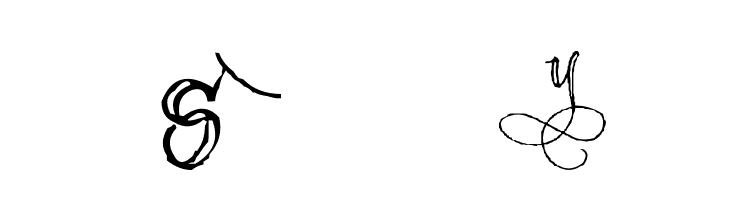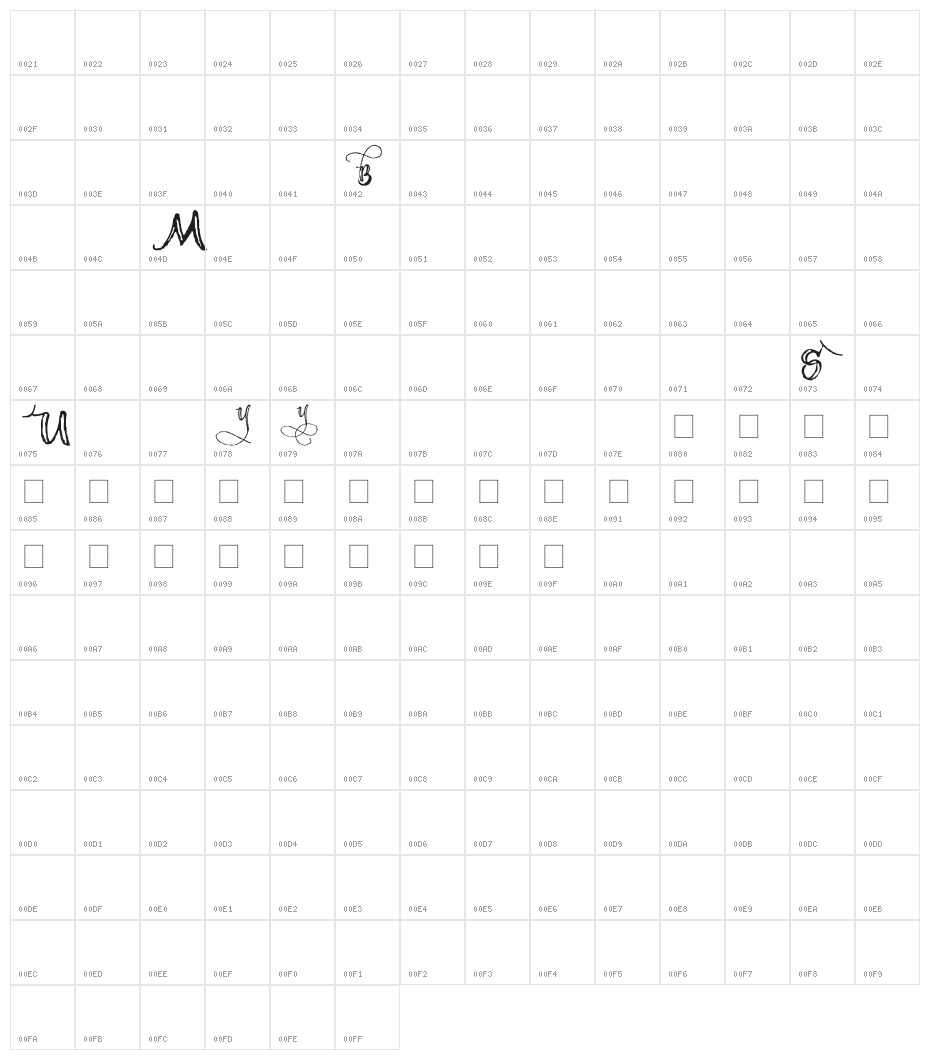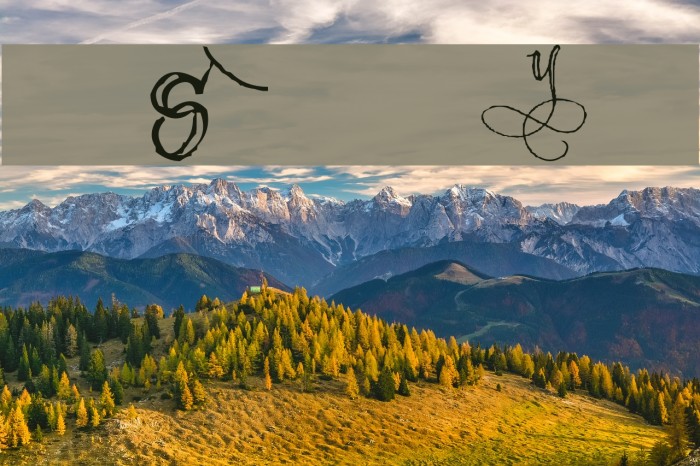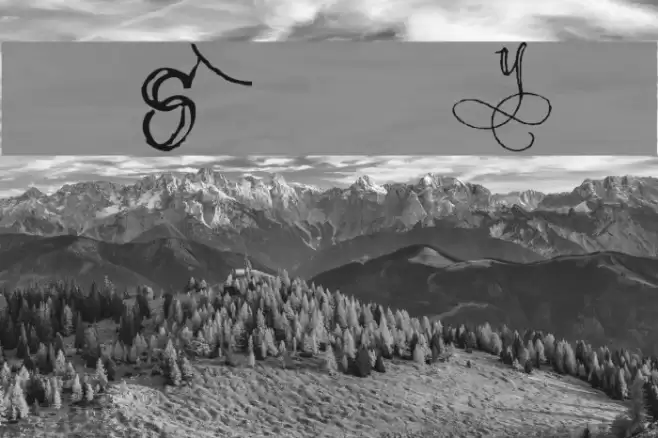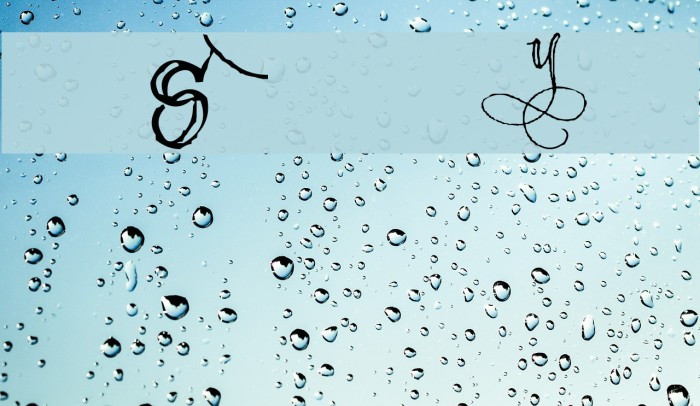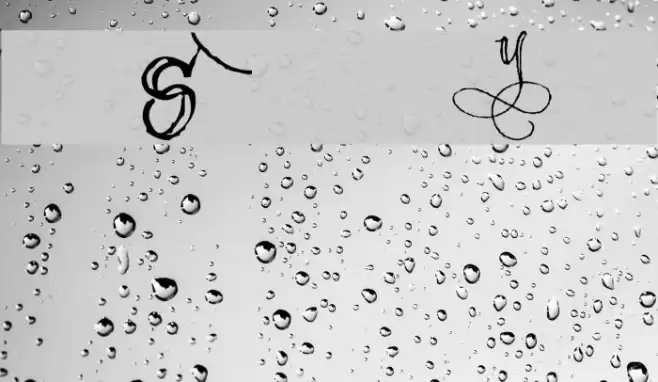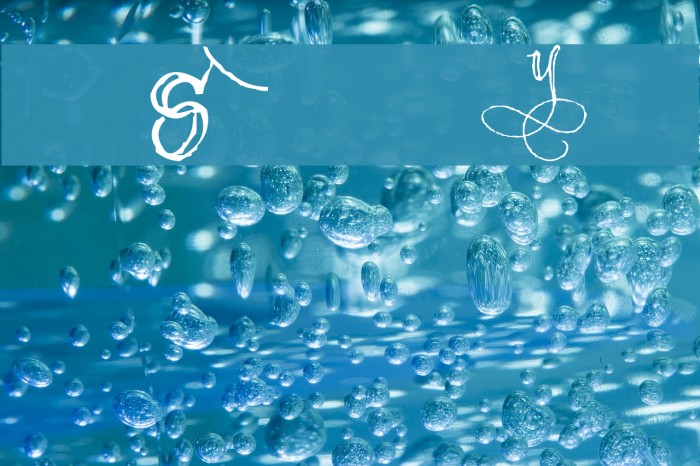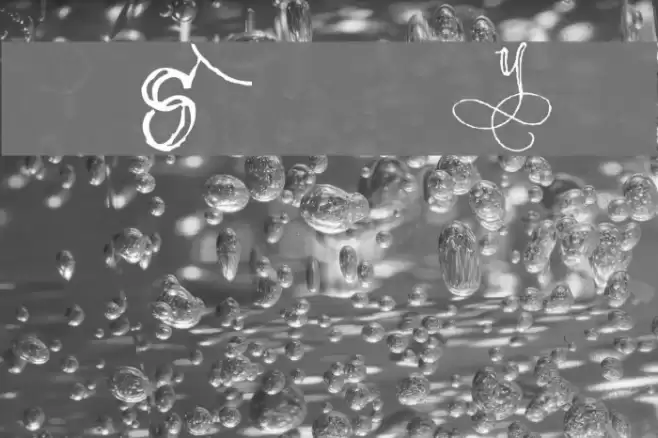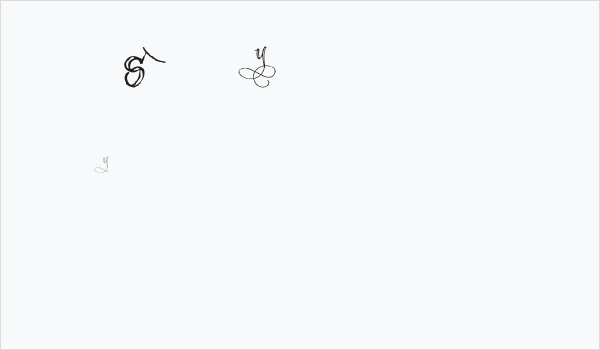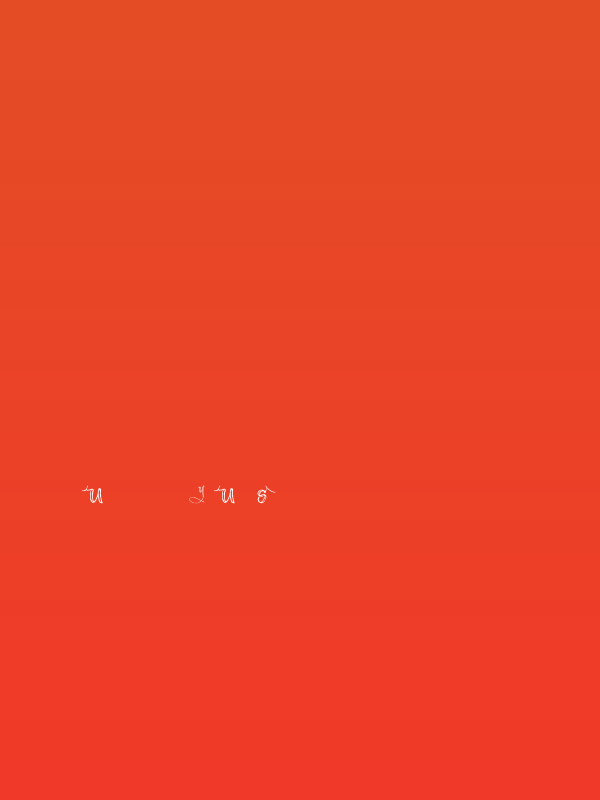
AEZ scripty 2 Font
AEZ scripty 2 Description
This font features an elegant and artistic script style, characterized by its flowing and intricate letterforms. The uppercase letters are bold and expressive, with dramatic flourishes and swashes that add a sense of movement and sophistication. The lowercase letters maintain a consistent style, with delicate loops and curves that enhance the font's graceful appearance. The overall design is highly decorative, making it suitable for creative and ornamental uses. The font's unique character shapes and elaborate details make it stand out, providing a touch of elegance and refinement.
| Proposed Projects | Ideal for wedding invitations, greeting cards, branding, and any project requiring a touch of elegance and sophistication. |